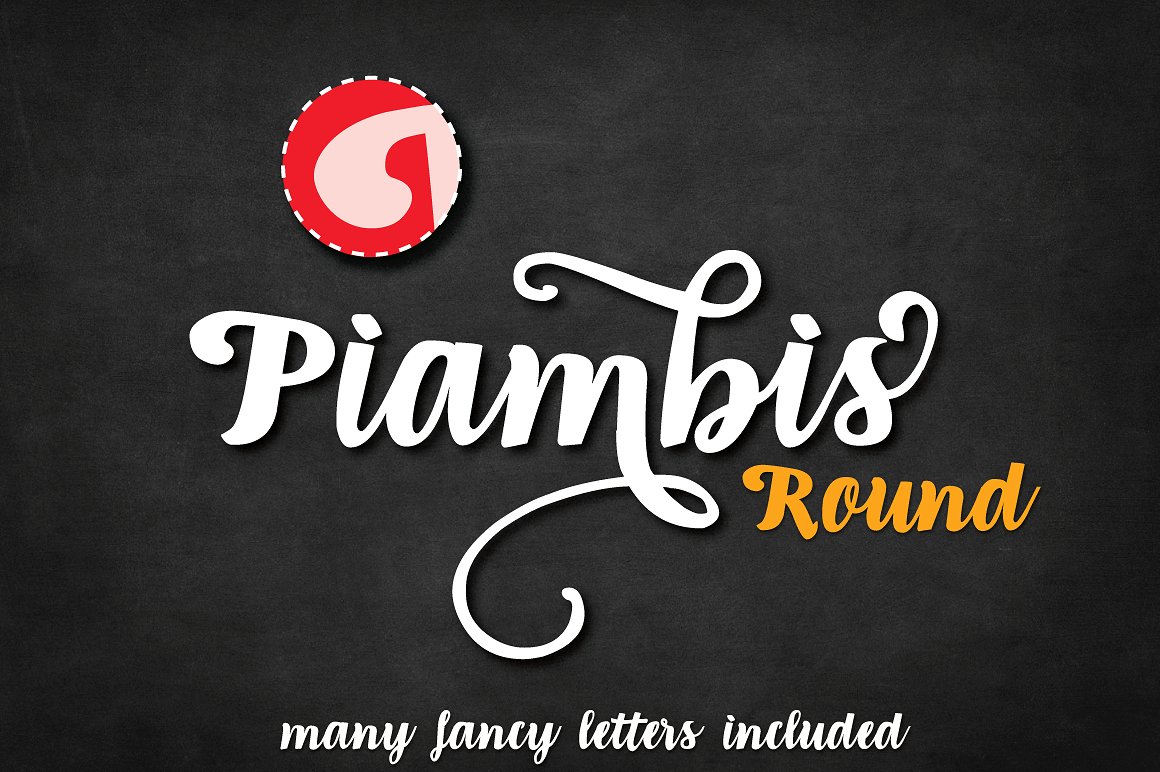
Piambis Round
Piambis Round Font
Piambis Round open type font
This listing is for Piambis Round Open Type Font. Piambis Round is handwritten font that boasts great variety of glyphs – many of which are fancy alternates for standard letters (shown in preview box below). This font is designed so the letters are available via standard programs ie. Word. It is recommended however that you use professional software such as Photoshop or Illustrator to make your work easier as there are over 1600 glyphs in each of the fonts included in Piambis family.
Piambis Round